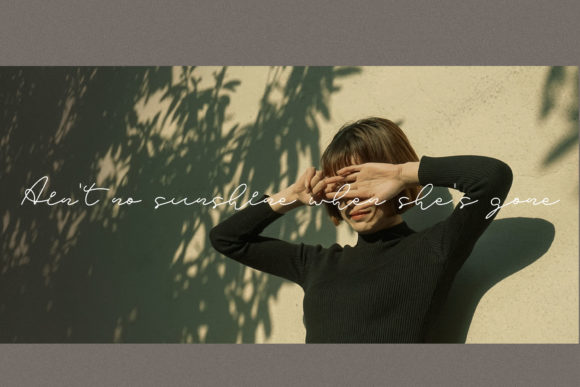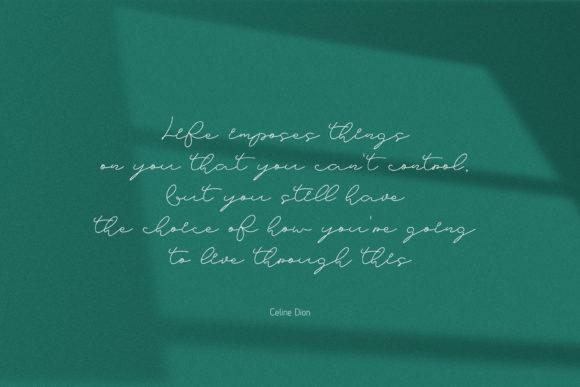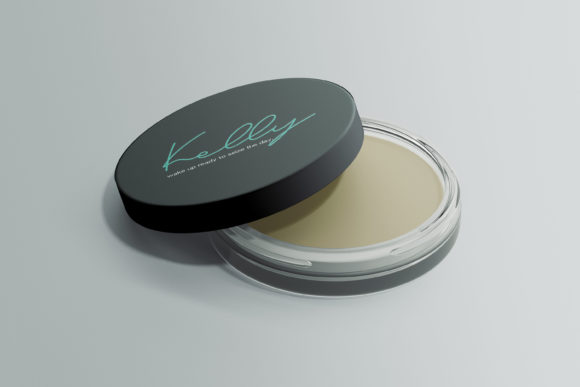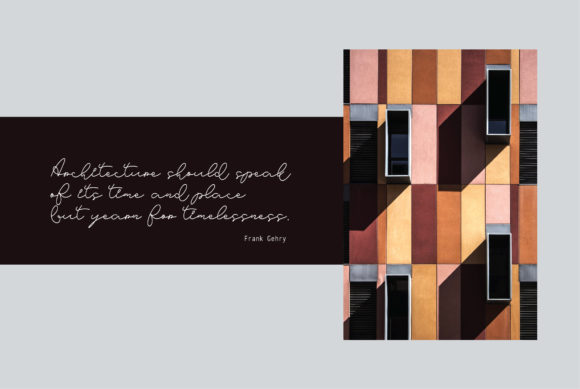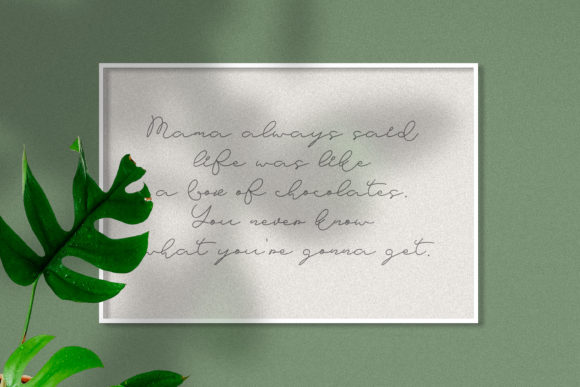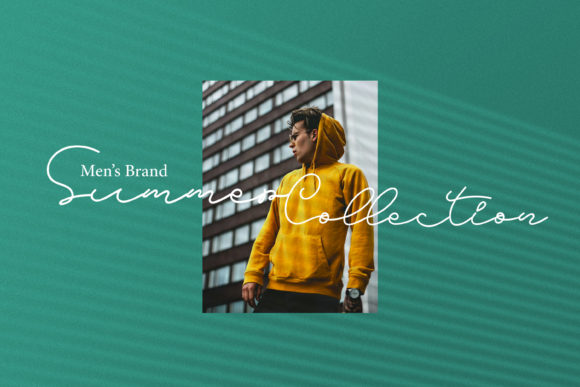
The Elusive Perfect Font: My Encounter with Anjie
Ah, the quest for the perfect font. We’ve all been there – scrolling through endless font libraries, trying to find that one font that brings our design vision to life. I recall a particularly frustrating project where I was tasked with creating a wedding invitation suite. The client wanted something elegant, modern, and sophisticated, but I just couldn’t seem to find the right fit. That was until I stumbled upon Anjie, a beautiful and refined script font that has since become a staple in my design toolkit.
An Honest Review of Anjie
So, what makes Anjie so special? Let’s dive into the good stuff and, of course, a few quirks I’ve encountered.
What I Love About Anjie
- ✨ Elegant and refined design that’s perfect for high-end branding and luxury projects
- 🎉 Beautifully crafted with a range of OpenType features, including glyphs and stylistic alternates
While Anjie is an exceptional font, there are a few things to keep in mind:
- 🤔 Some of the more intricate glyphs can be a bit finicky to access, especially for beginners
- ⚠️ Not ideal for body text or long-form content, as it’s best suited for headlines and titles
The Story Behind Anjie
While the origins of Anjie may be shrouded in mystery, it’s clear that the designer poured their heart and soul into crafting this exquisite font. Imagine a designer, fueled by passion and creativity, meticulously crafting each glyph and stylistic alternate to create a truly unique typeface. That’s the story of Anjie – a labor of love that’s sure to inspire and elevate your designs.
| Font Name | Anjie Font |
| Author | Fontana Studio |
| What type of projects is Anjie best suited for? | Anjie is ideal for high-end branding, luxury projects, weddings, and creative designs where elegance and sophistication are paramount. |
| Is Anjie suitable for body text? | No, Anjie is best suited for headlines and titles. For body text, consider pairing it with a complementary font like Lora or using a sans-serif font. |